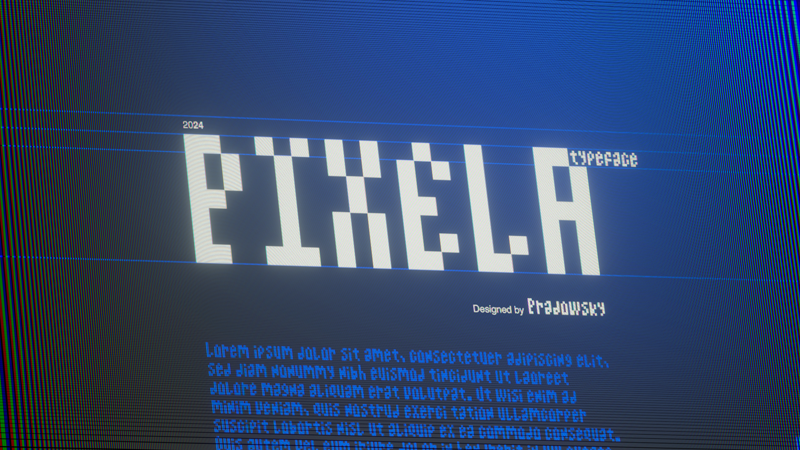
PIXELA is a pixel style typeface, an original creation with the main goal to expand the pixel family typography. It has a characteristic condensed desintegrated look, making it readable, elegant and charismatic; specially for display and titles uses. It is a simple latin version with 231 glyphs, with special characters to support variety of languages. by PRADOWSKY. |